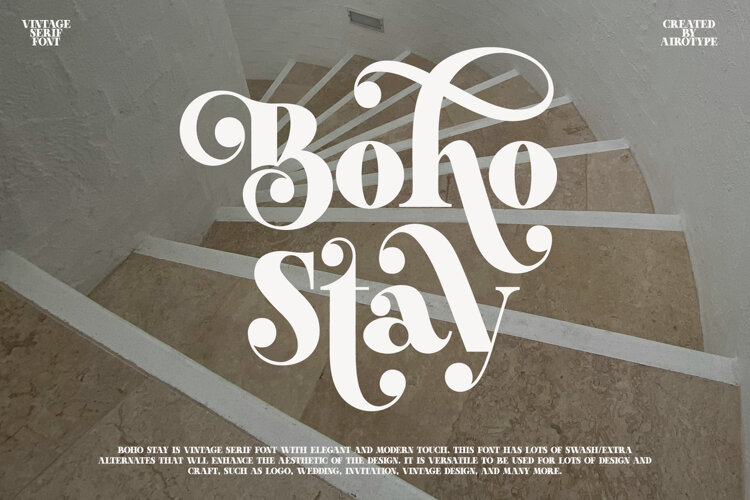
Boho Stay is modern serif font with vintage and pretty touch. It has elegant, classic, and luxury vibes.
It is perfect font for any projects with modern vintage touch, such as logo, crafting, wedding invitation, branding, sticker, sublimation, quotes, and many others.